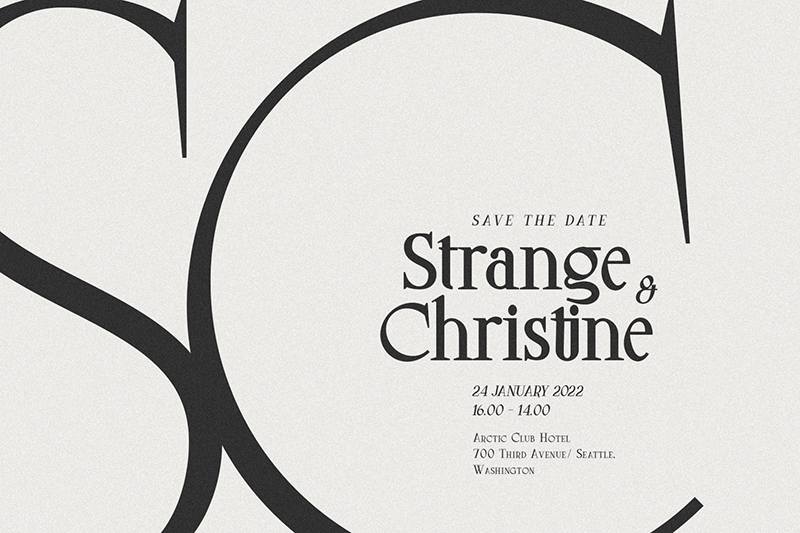
Preview and download Little Muffin Font. Created by Wahyu Rahmawan in Basic Serif styles with 100% Free license.
Download LittleMuffin, a charming serif font family that offers a contemporary touch. The fusion of modern and vintage elements results in an elegant design that will elevate your project. Best of all, LittleMuffin is free to download. Don�t miss out on this opportunity to enhance your work with this stunning font. Want all the features? Get the full version now! https://go.factory738.com/758HTD |